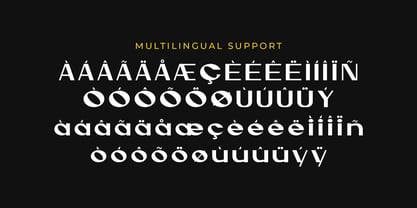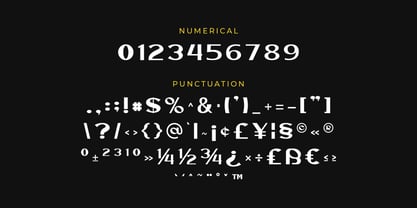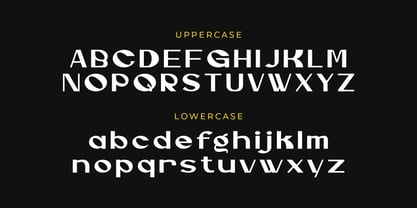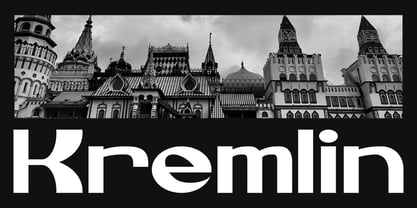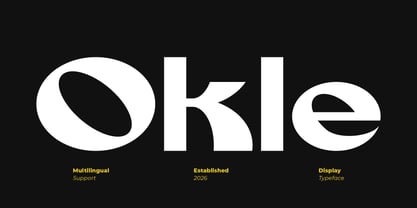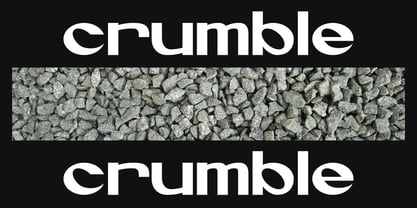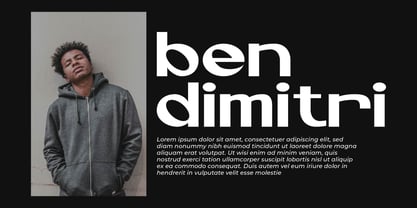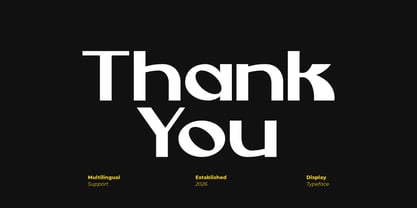
Okle
by Artiveko
The Okle Font Family was designed by Iwan Alwan and published by Artiveko. Okle contains 2 styles and family package options. More about this family
Okle is a striking display typeface crafted to infuse bold personality and visual uniqueness into your designs. Featuring distinctive letterforms and expressive shapes, Okle embodies a modern creative style that ensures your typography stands out in any composition. Ideal for branding, posters, logos, packaging, social media graphics, and artistic projects, Okle offers strong visual impact while maintaining excellent readability in larger sizes. Its innovative character is perfect for designers eager to transcend conventional typography and create something truly memorable. Whether you're establishing a bold brand identity, crafting eye-catching headlines, or designing expressive visuals, Okle brings a fresh and dynamic flair to your work. More than just a font, Okle is a declaration of creativity and originality.
Designers: Iwan Alwan
Foundry: Artiveko